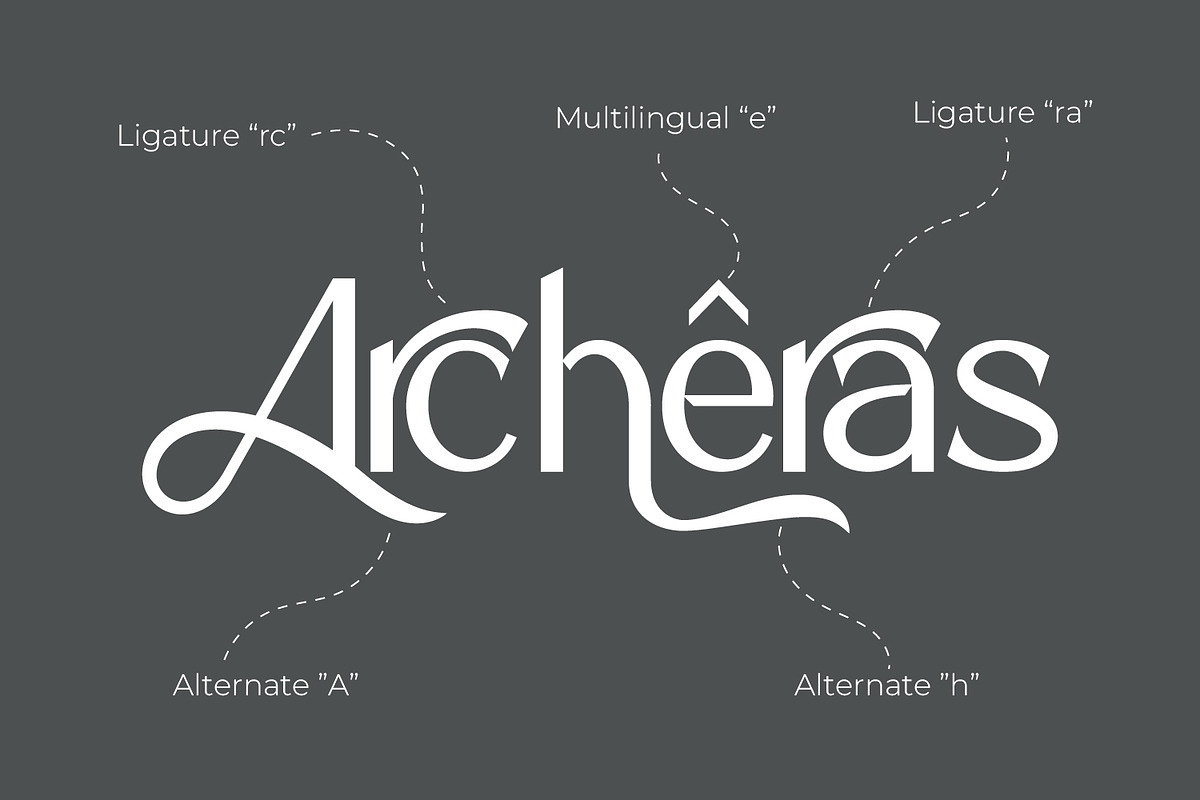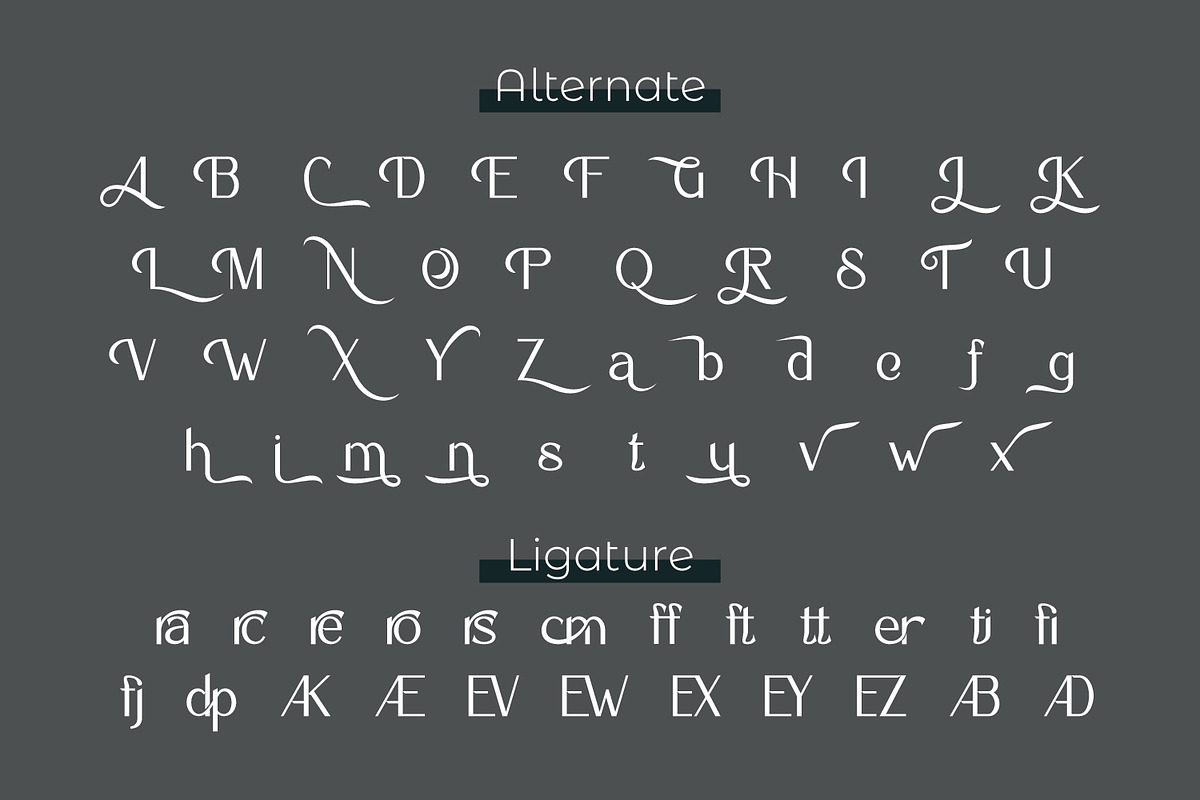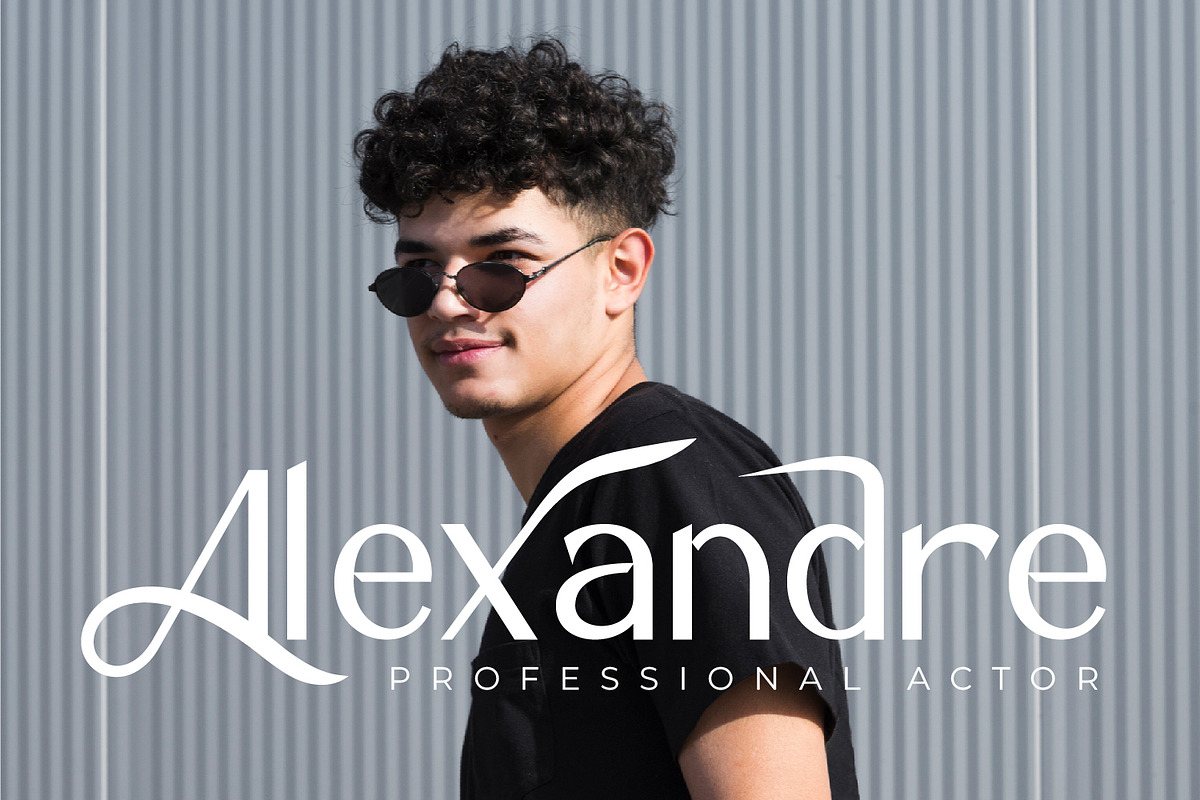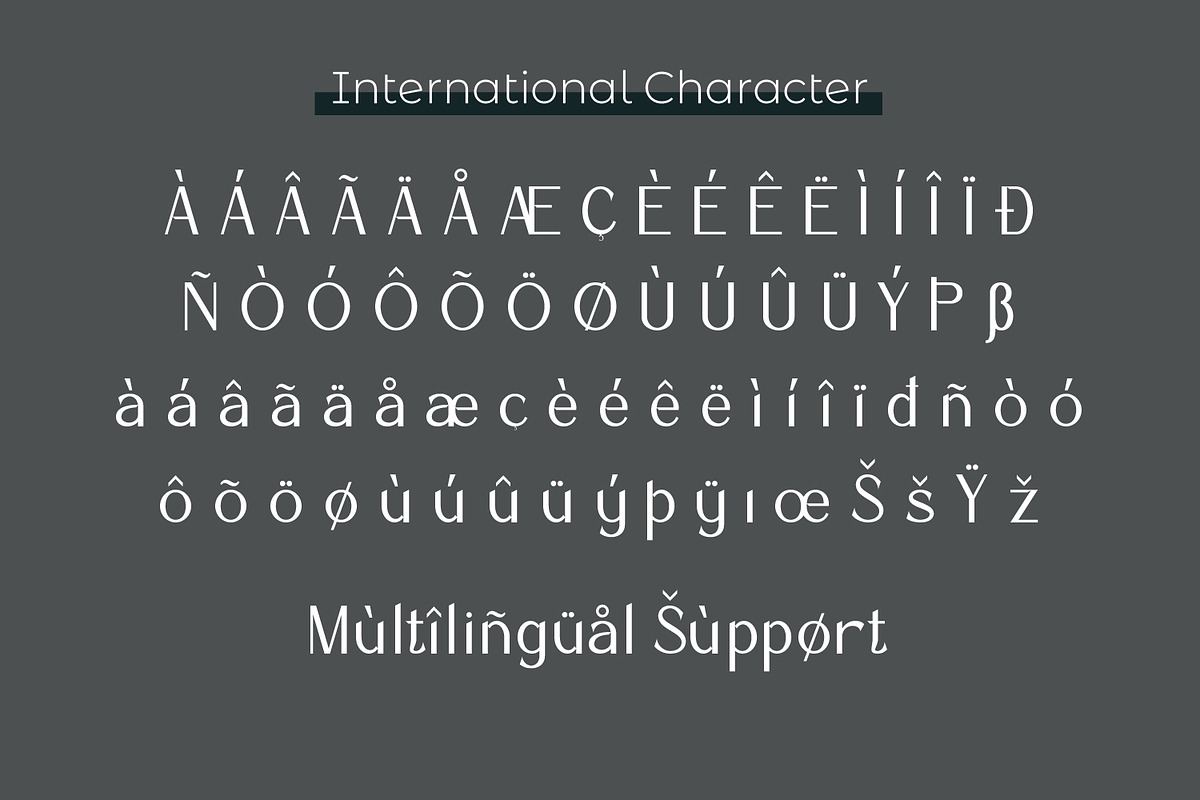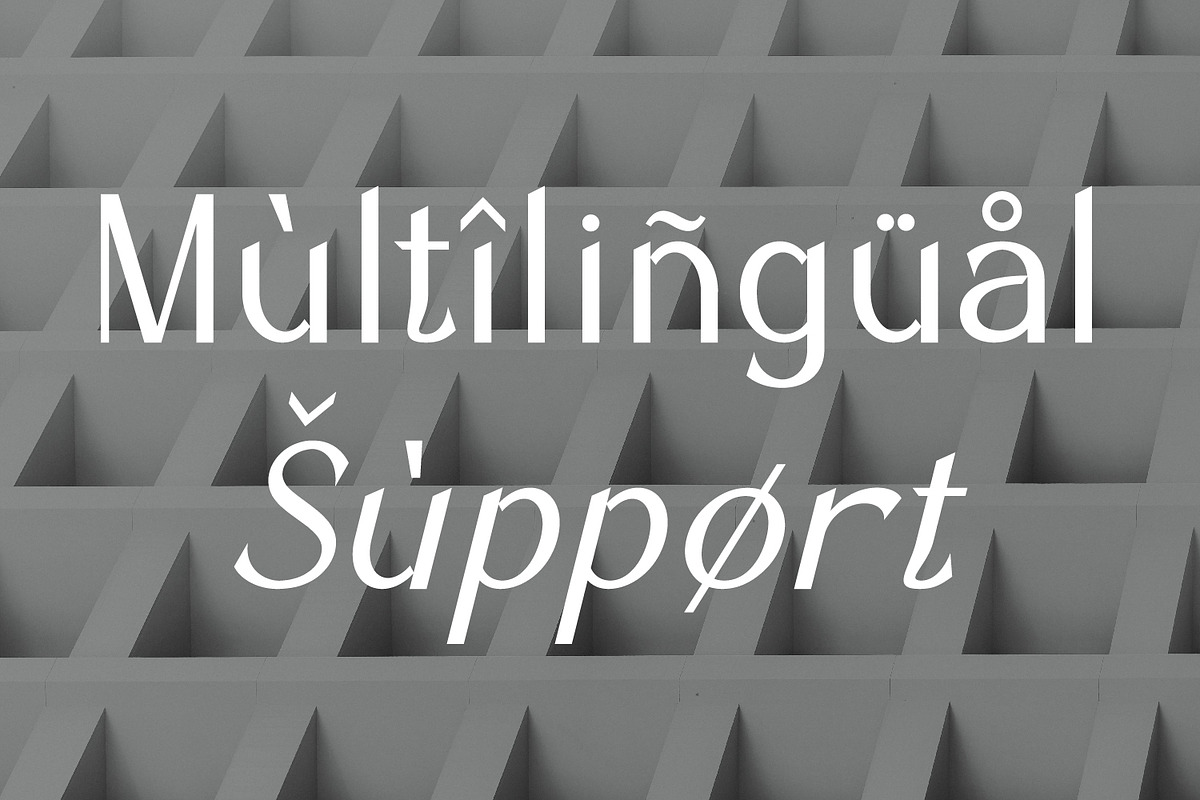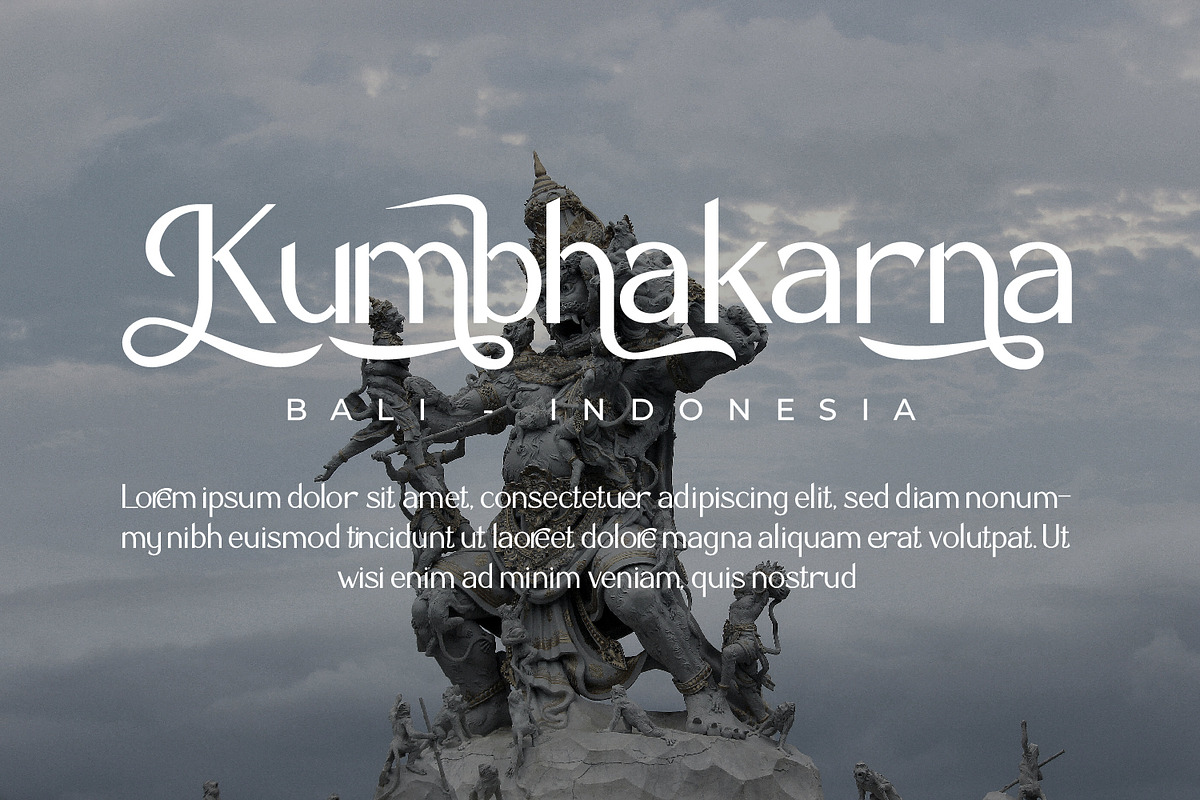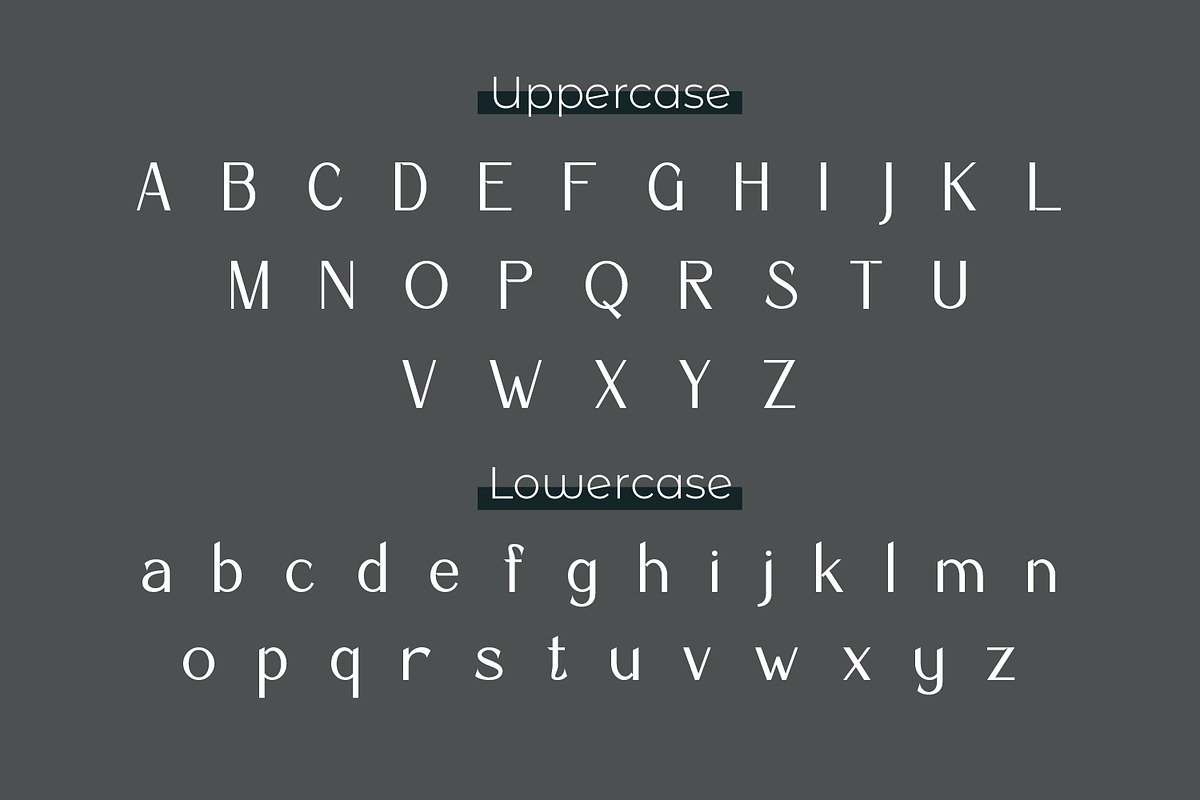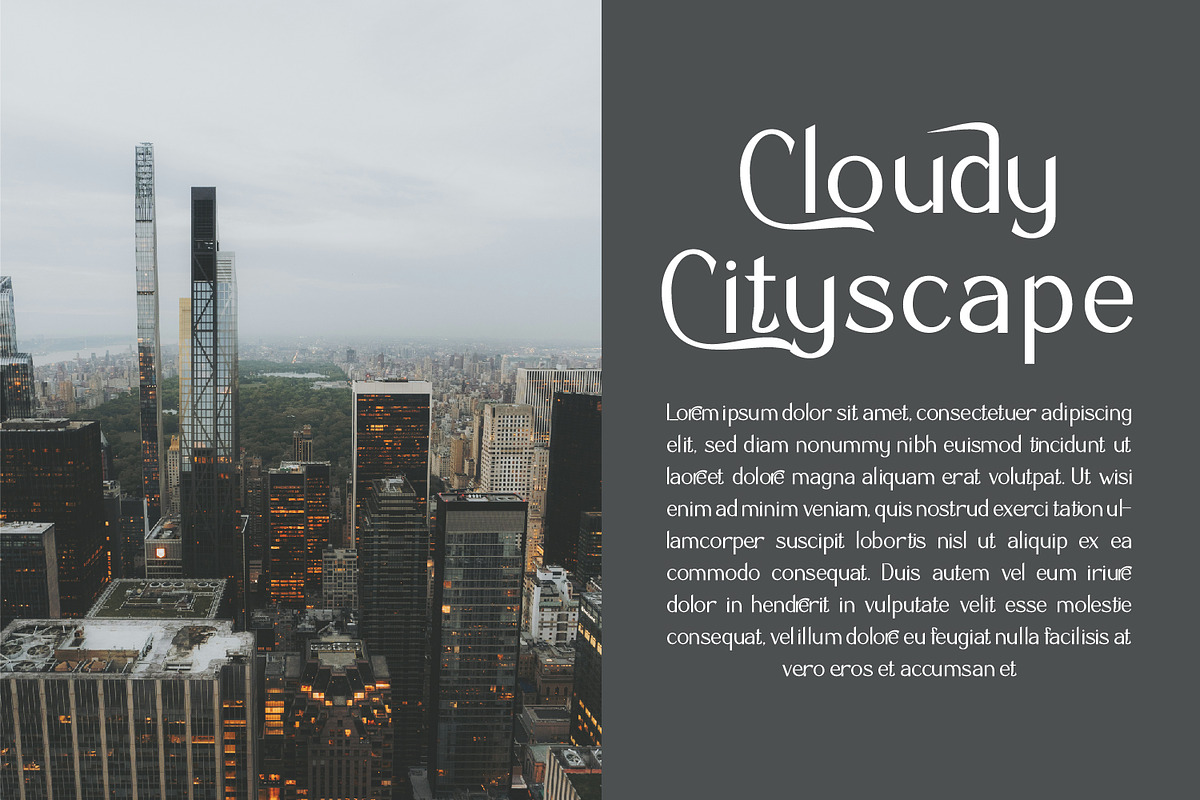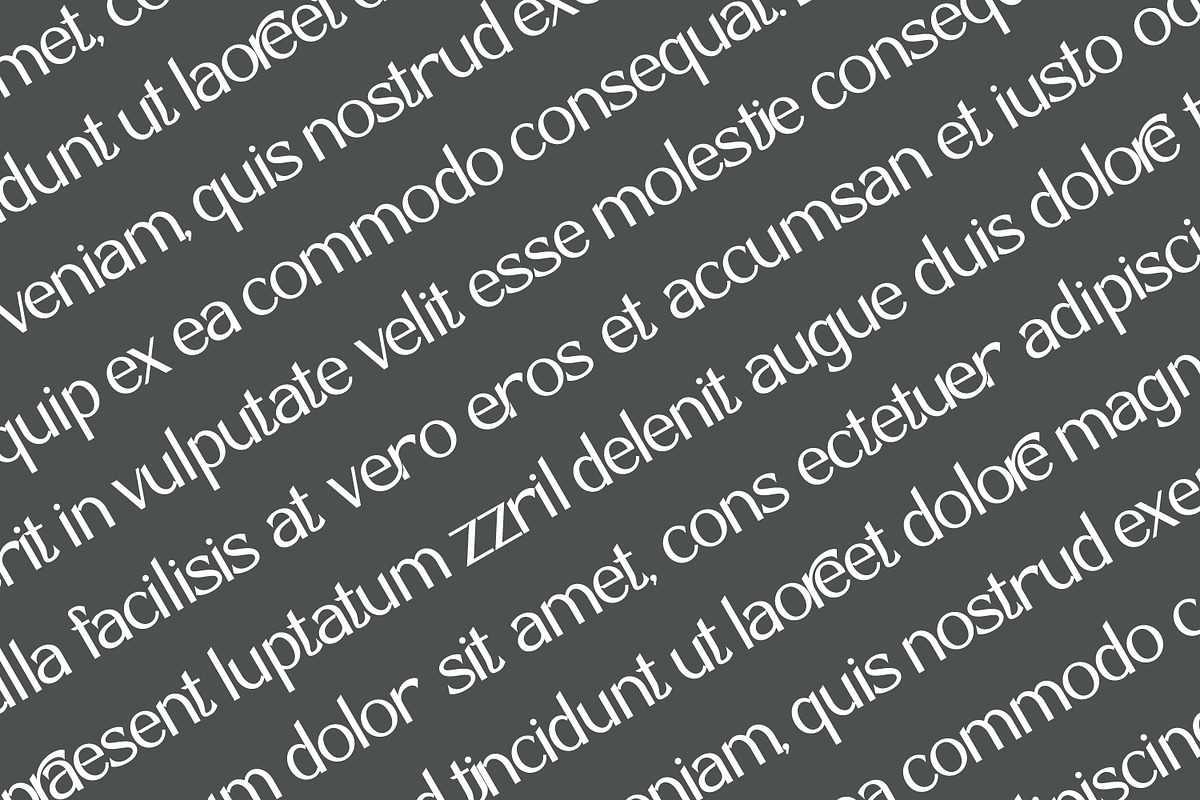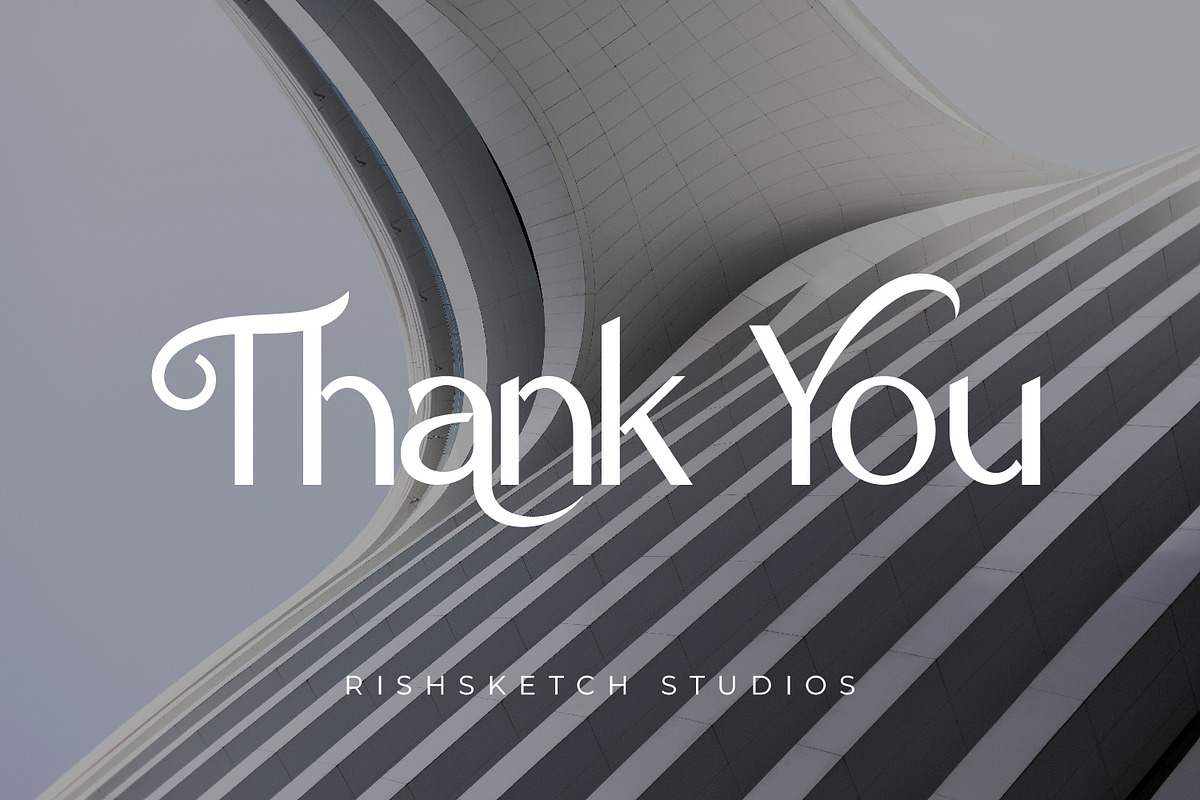
Archeras
Archeras - Modern Sans Serif Font, from Rishsketch Studios, is a premium Sans Serif Font, perfect for any project that requires a distinctive, and premium feel.
- Ligature, Alternate & amp; Multilingu